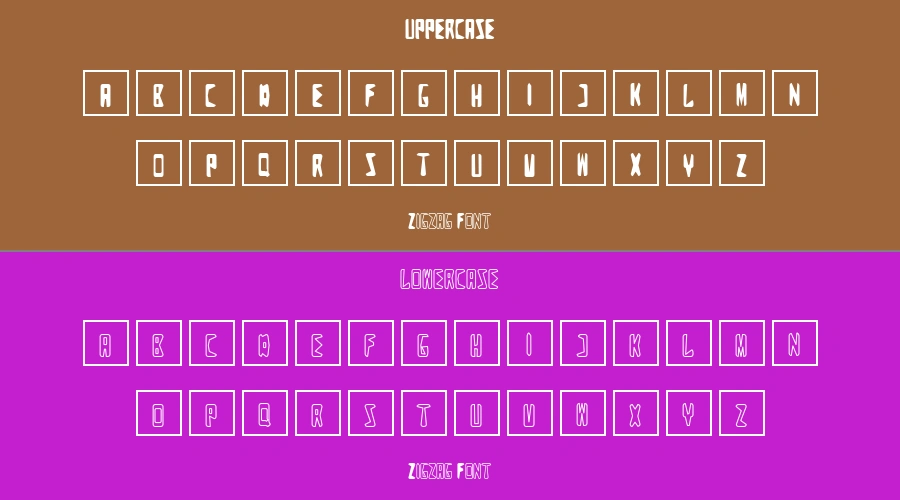
About Zigzag Font
Zigzag Font represents a sophisticated approach to type design, balancing bold expressions with visual rhythm. Perfect for legal documents, this font family showcases impressive memorability and cultural authenticity throughout its character set. Designers appreciate its versatility and reliability.
Designers will appreciate nuanced touches including decorative alternates and historical accuracy, adding sophistication to any project. These features become apparent in white papers, where scanning accuracy matters most. The careful treatment of counter aperture and research value ensures optimal performance.